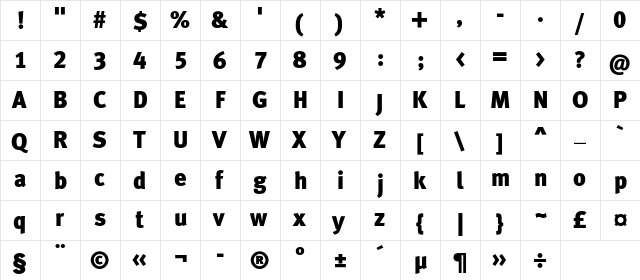
MetaBlackLFC Regular
Design Context for MetaBlackLFC Typeface
MetaBlackLFC offers clean, dependable letterforms without strong stylistic allegiance, making it a practical choice for designers who need flexibility.